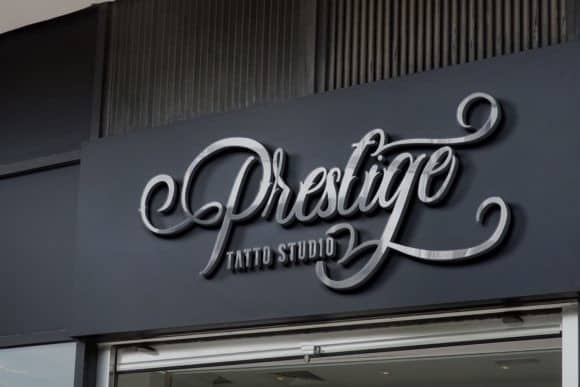
Daisuky Fancy Calligraphy Font
Daisuky Fancy Calligraphy Font is The latest Calligraphy Script created using a calligraphy pen, made as natural as possible so that it displays an attractive handwritten impression so that it can be applied to various design needs, ranging from logotypes, lettering quotes for social media needs, Instagram, Facebook, and others. It has beautiful and well balanced characters and as a result, it matches a wide pool of designs.
Daisuky Fancy Calligraphy Font features a varying baseline, smooth lines, gorgeous glyphs and stunning alternates. Add it to your most creative ideas and notice how it makes them come alive!